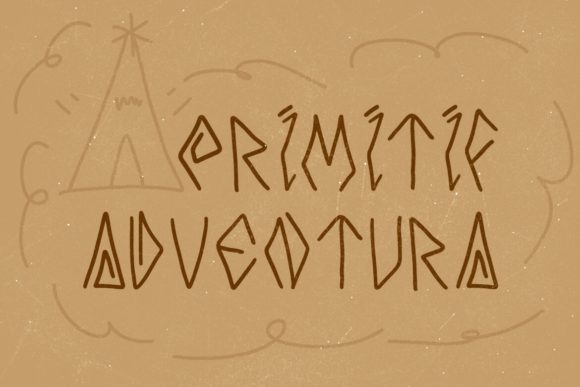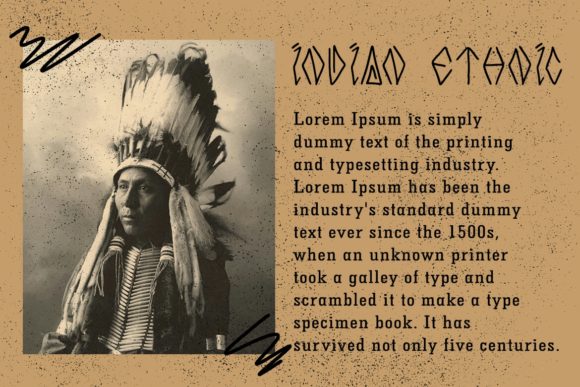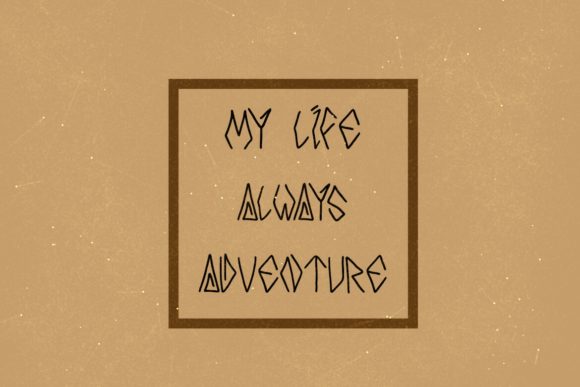
Introduction to Indiano Font
Indiano is a unique and interesting display font.
👤 Author Linyeng Studio
A little bit quirky, this font is a great choice for a wide variety of contexts Get this wonderful design and give your creative ideas a stylized and personal touch.
Key Features of Indiano Font
Why Choose Indiano Font?
Indiano Font offers exceptional quality and versatility, making it a valuable addition to your design toolkit. Whether you’re creating for personal projects or commercial use, Indiano Font delivers professional results.